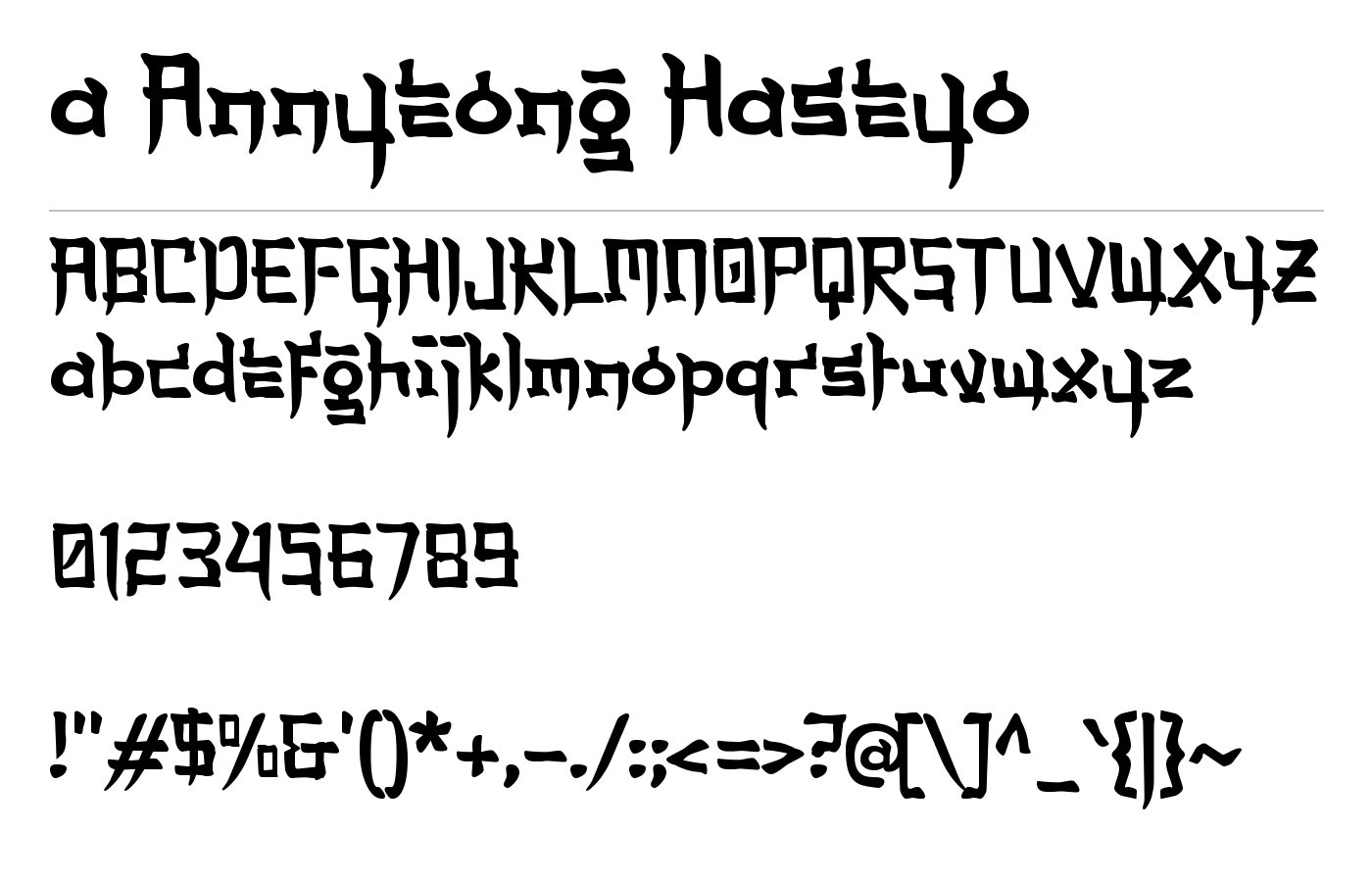
Annyeong Haseyo is a unique display font blending elements of gothic and calligraphic styles, characterized by its sharp, narrow strokes and irregular shapes that evoke an edgy, mysterious vibe. This bold, condensed typeface features distinct letterforms with a handmade feel, making it perfect for creative projects that seek a dramatic, unconventional look, such as posters, branding, or titles that demand attention. Its artistic, somewhat exotic personality suits designs aiming to stand out with a touch of dark elegance and intrigue.
a Annyeong Haseyo Font
About a Annyeong Haseyo Font